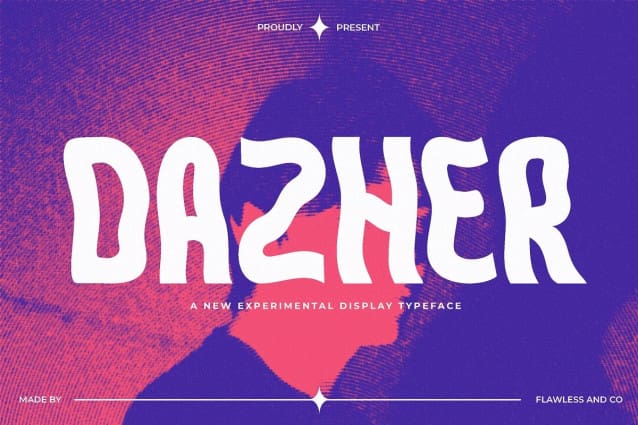
Dazher Experimental Font
Dazher Experimental Font, a display sans-serif font that transcends the ordinary, elevating your designs with its distinctive and modern appeal. Dazher is not just a typeface; it’s a bold statement, a design element that captures attention and adds a touch of contemporary flair to your creative projects.